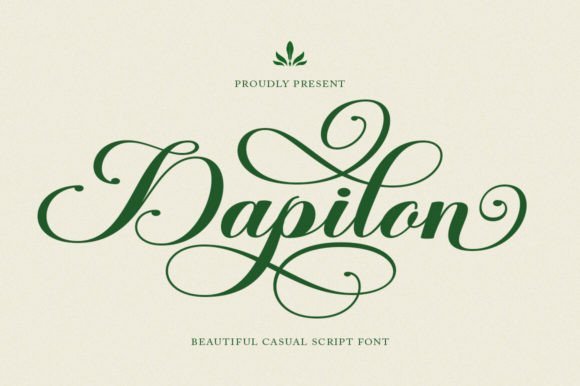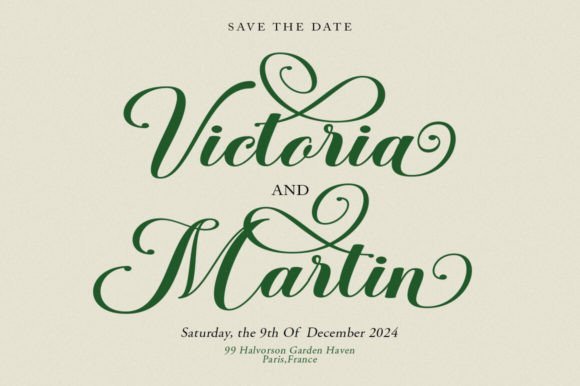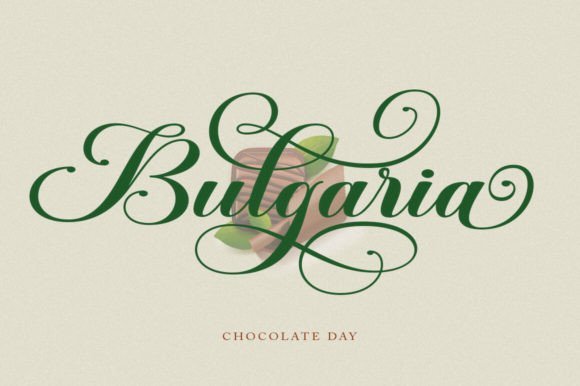
Dapilon Font
Dapilon Modern Calligraphy Font, made with Natural & precision, is perfect for branding, websites, and editorial designs. Includes all Character’s letters, multilingual support, punctuation, and binding.